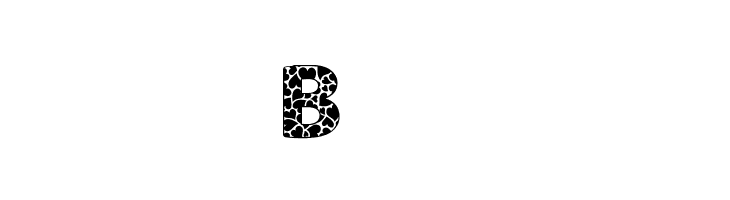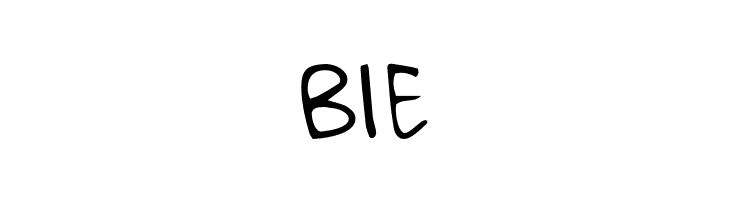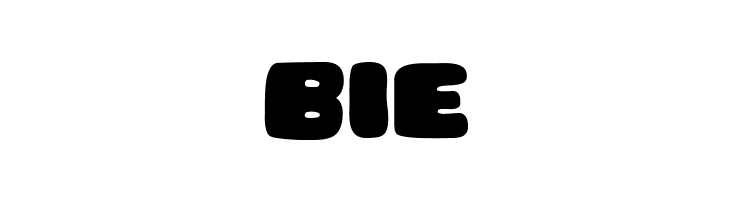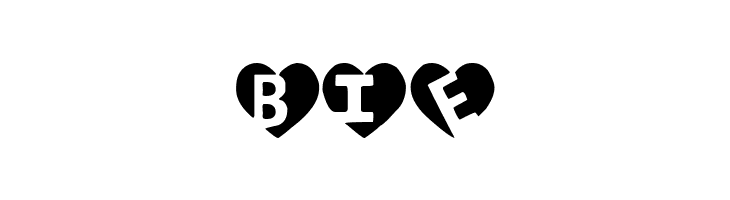
A decorative font with a heart pattern, ideal for playful and romantic designs.
A playful, hand-drawn font with rounded edges and a casual style.
A playful, casual handwritten font with uneven strokes and a friendly appearance.
A bold, rounded font with a playful and friendly appearance.
A playful, heart-themed font with bold, stylized characters.
A playful, bold font with rounded, bubbly characters.
A bold, rounded typeface with a playful and modern style.
A festive, decorative font with holiday-themed embellishments.
A bold, rounded, and italicized font with a playful and friendly style.